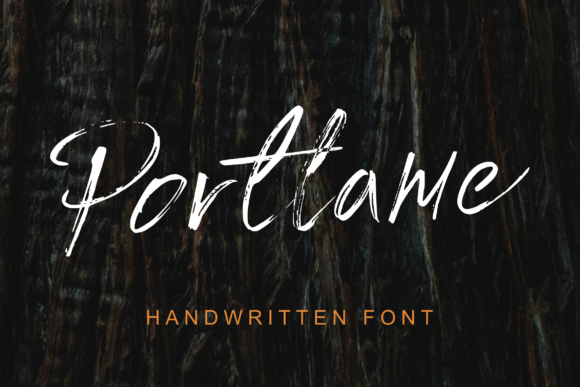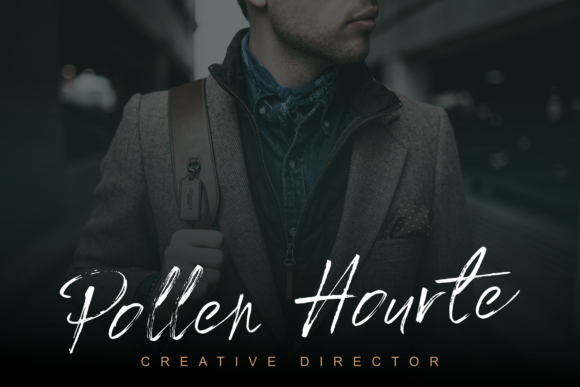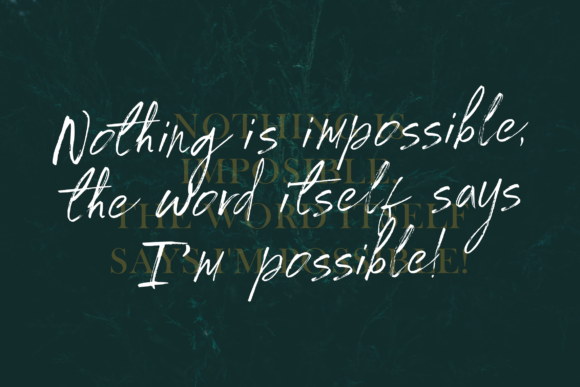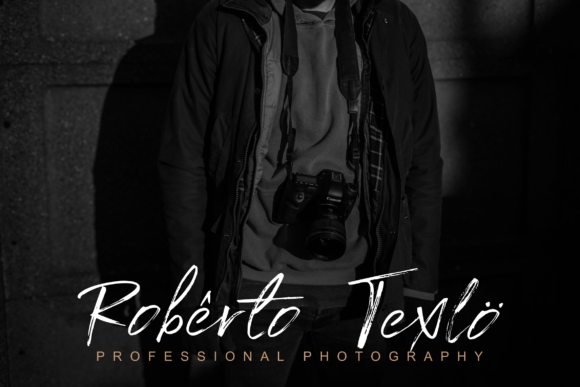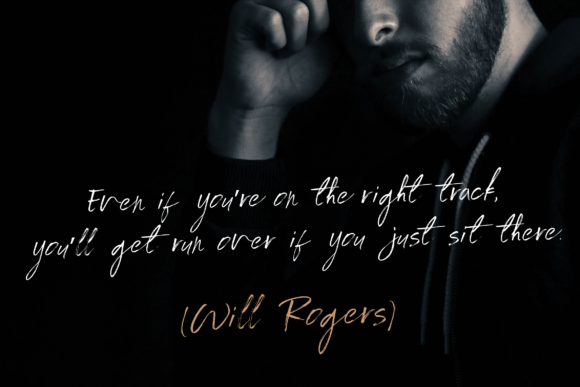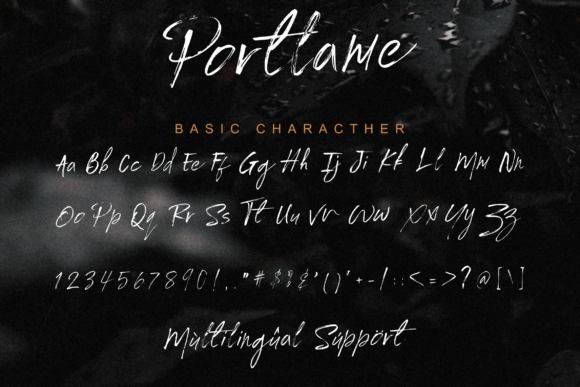
Portlame Font
About Portlame Font
Portlame is a casual, fun script font, created by using a brush pen. Clean and a little bit quirky, this font is the perfect fit for all of your logos, branding, social media, and crafty DIY projects.